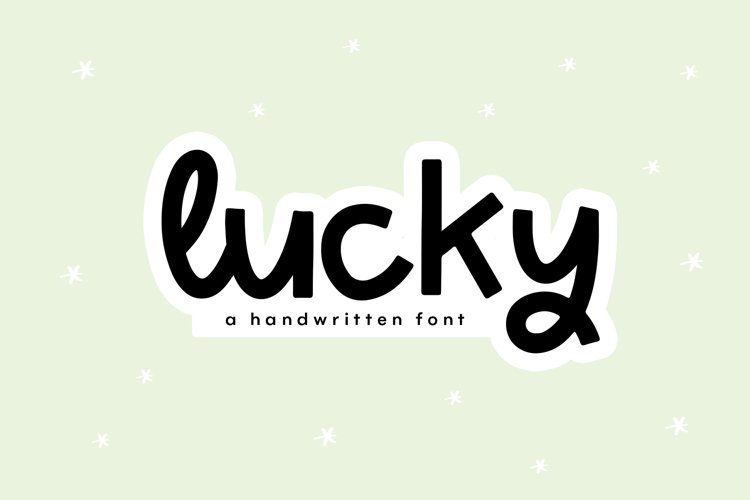
Lucky - A Handwritten Display Font
Lucky
Lucky is a monoline display font.
This font is perfect for modern projects, quotes, shirt designs, websites, branding, children's designs, svg designs, blogs, logos, invitations and more!
Most accent characters included.